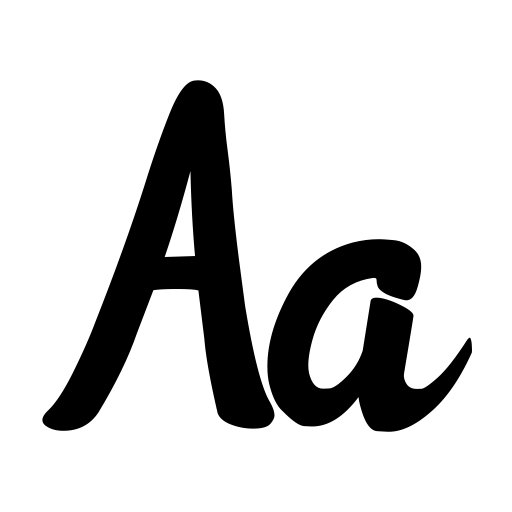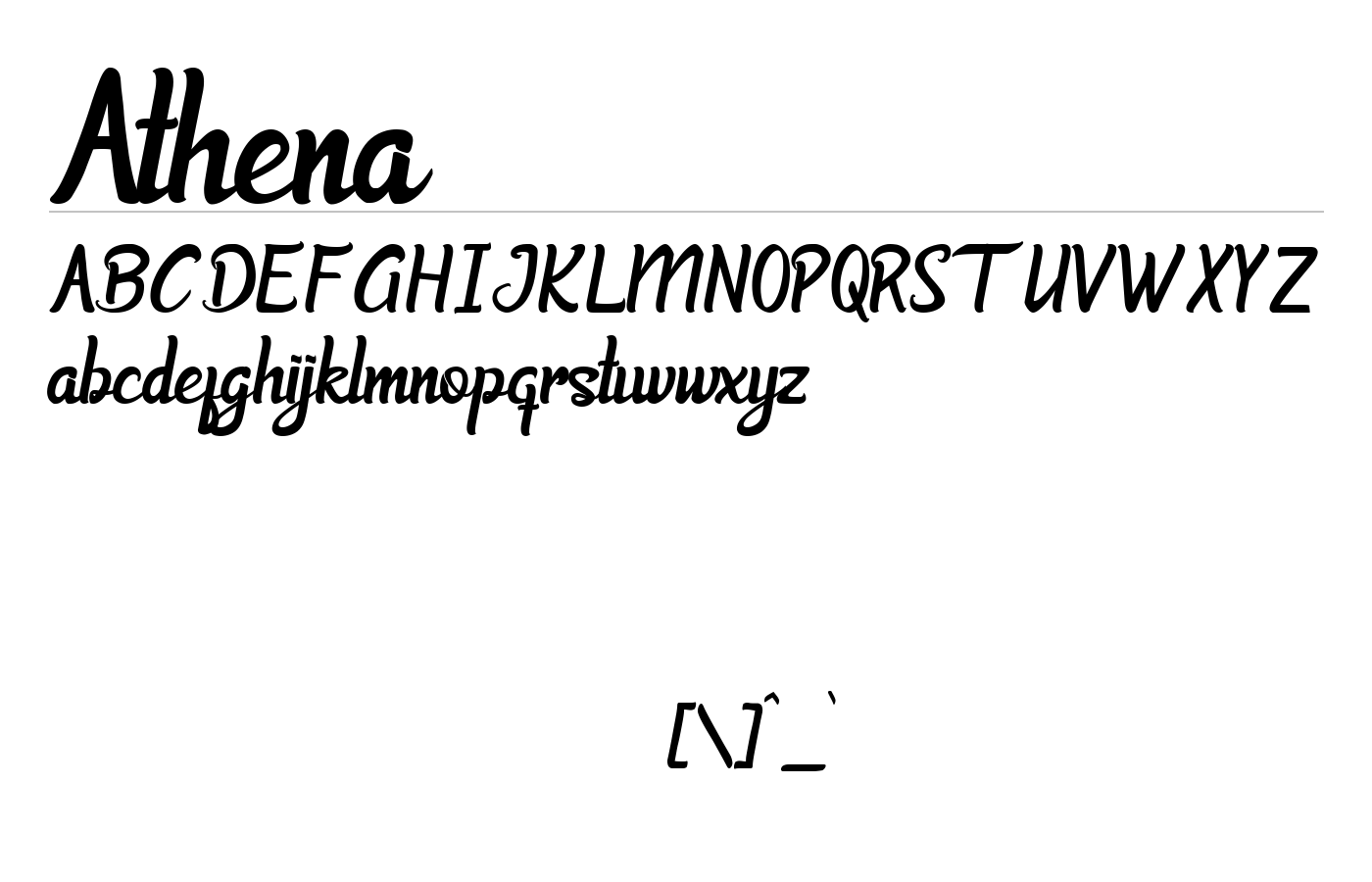
Athena is a stylish script font with a smooth, flowing character that balances elegance and readability. Its moderate weight and slightly condensed forms give it a graceful yet approachable feel, making it ideal for branding, invitations, and creative headlines where a touch of personality and charm is desired. This font works well in projects seeking a casual yet refined look, blending handwritten warmth with polished design.
Athena Font
About Athena Font
| Font family | Athena Font |
| Designer | Wahyu Saputra |